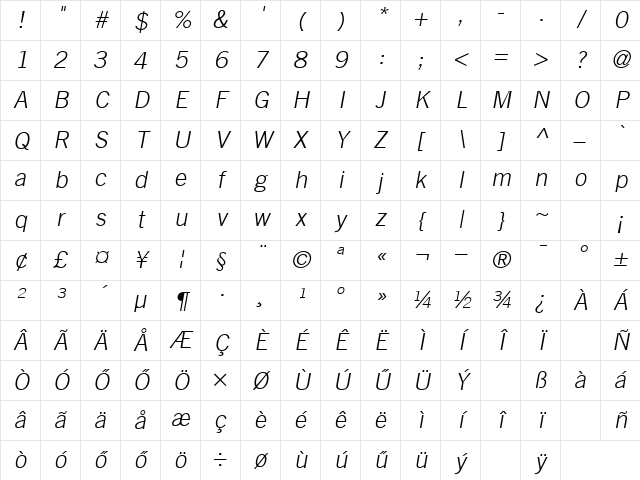
Huni_Trade Lt Oblique Regular
Design Context for Huni_Trade Lt Oblique
Huni_Trade Lt Oblique is a composed and adaptable typeface that performs quietly and consistently across a wide range of design contexts. The slanted form adds forward momentum and visual energy. Its slender proportions lend an understated elegance to any composition.
Pro Tip: Use Huni_Trade Lt Oblique for emphasis, pull quotes, and subheadings where its slanted energy can add rhythm to the layout.